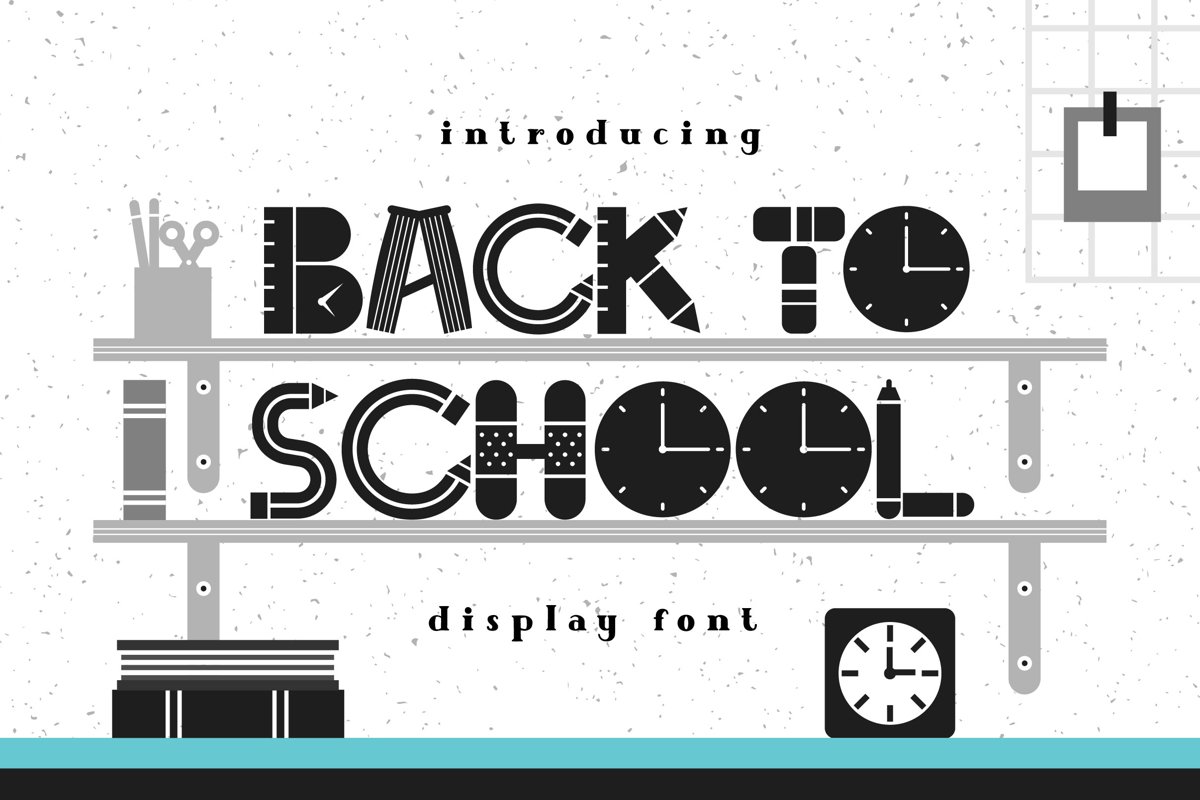
Back To School Font
Back To School
Back To School Spacious
Hi there! Back To School is a display font with school stuff themes. Perfect for poster, invitation, etc.